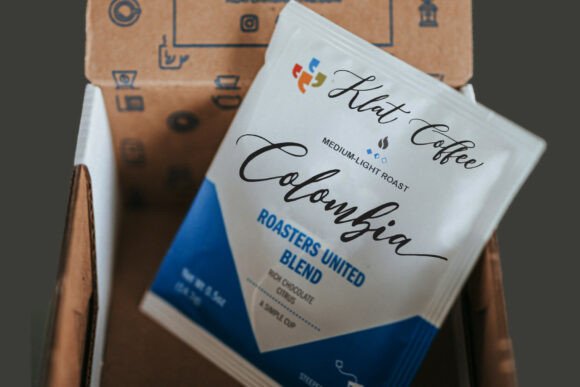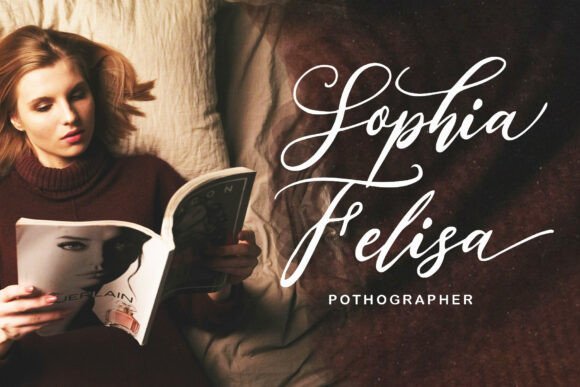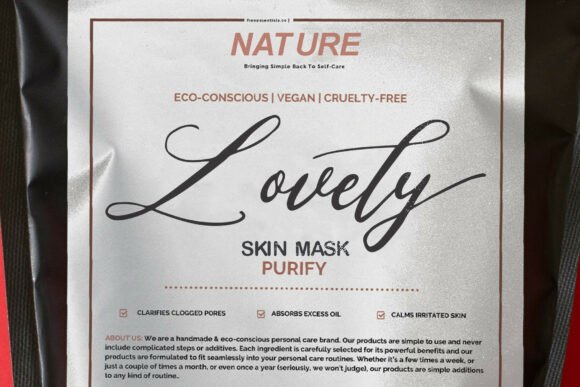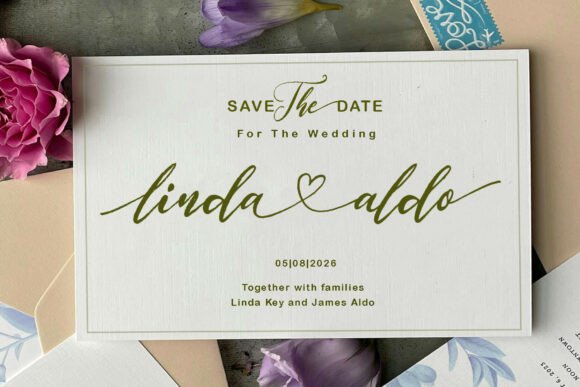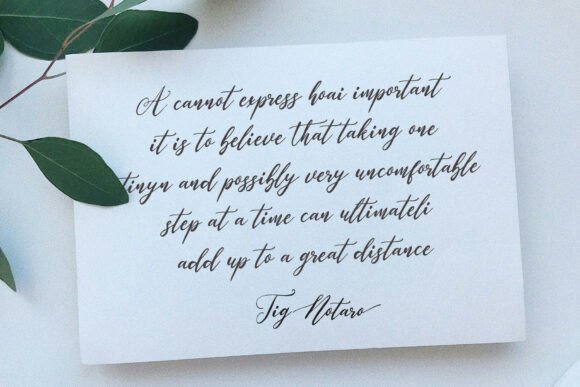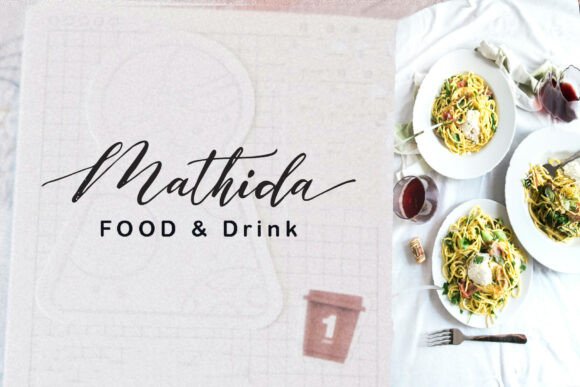
Introducing Elastime Font: The Epitome of Original Allure
In the world of typography, a font can make or break the visual appeal of a design. For crafters and designers looking to add a touch of originality to their projects, the Elastime Handwritten font is a game-changer. Characterized by its distinctive creative spark, this font infuses your concepts with a tapestry of brilliantly unique alternatives, making it the perfect solution for those seeking a strikingly artistic approach.
The Art of Handwritten Typography
The Elastime Handwritten font is a masterpiece of typographic design, harmoniously blending authenticity with sophistication. Its handwritten style gives your text a personal touch, evoking emotions and adding a human element to your designs. Whether you’re working on branding, logos, magazine layouts, or invitations, this font carries a versatile appeal that enhances endless creative possibilities.
Unleash Your Imagination with Elastime
The Elastime Handwritten font is a quintessential instrument that encapsulates your imaginative flair. With its unique and artistic style, you can:
- Create stunning brand identities that stand out from the crowd
- Design eye-catching logos that leave a lasting impression
- Develop captivating magazine layouts that engage and inspire
- Craft beautiful invitations that set the tone for any occasion
What Sets Elastime Apart
So, what makes the Elastime Handwritten font so special? Here are just a few features that set it apart:
- Unique Character Set: Elastime boasts a distinctive character set that adds a touch of originality to your designs
- Handwritten Style: The font’s handwritten style gives your text a personal and authentic feel
- Versatility: Elastime is perfect for a wide range of design applications, from branding to invitations
- Sophistication: The font’s sophisticated style ensures that your designs always look professional and polished
Tips for Using Elastime Effectively
To get the most out of the Elastime Handwritten font, here are a few tips to keep in mind:
- Experiment with Colors: Elastime looks great in a variety of colors, so don’t be afraid to experiment and find the perfect hue for your design
- Mix and Match: Combine Elastime with other fonts to create a unique and visually appealing typography
- Play with Size: Elastime looks great in a range of sizes, from large headings to smaller body text
In conclusion, the Elastime Handwritten font is a must-have for designers and crafters looking to add a touch of originality to their projects. With its unique character set, handwritten style, and versatility, Elastime is the perfect solution for a wide range of design applications. So why wait? Download Elastime today and unleash your creative potential!
| Font Style | Handwritten |
| Character Set | Unique and distinctive |
| Versatility | Perfect for branding, logos, magazine layouts, and invitations |
| Sophistication | Ensures professional and polished designs |